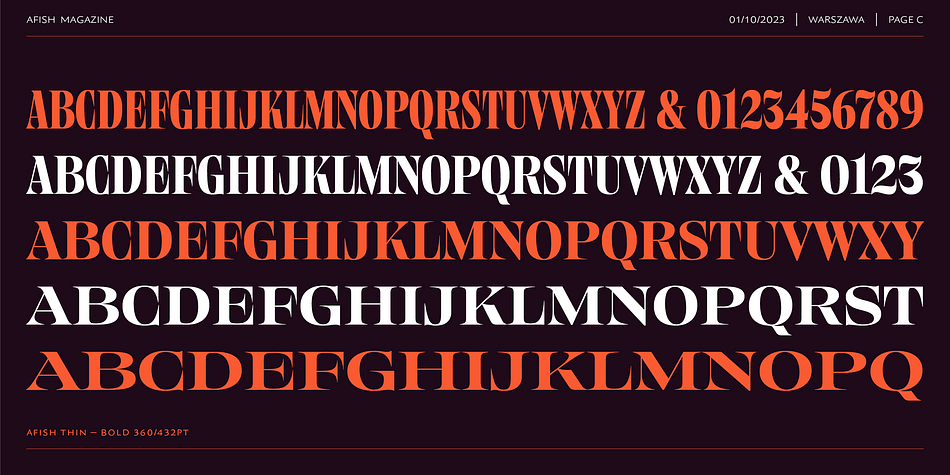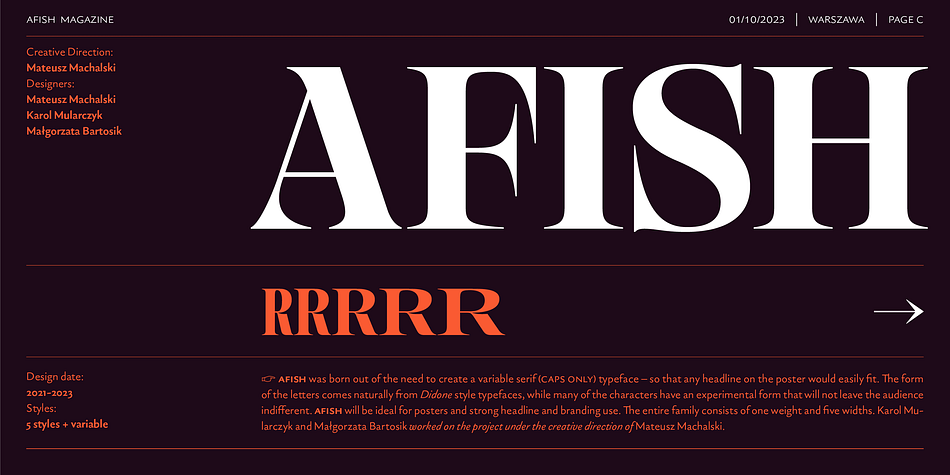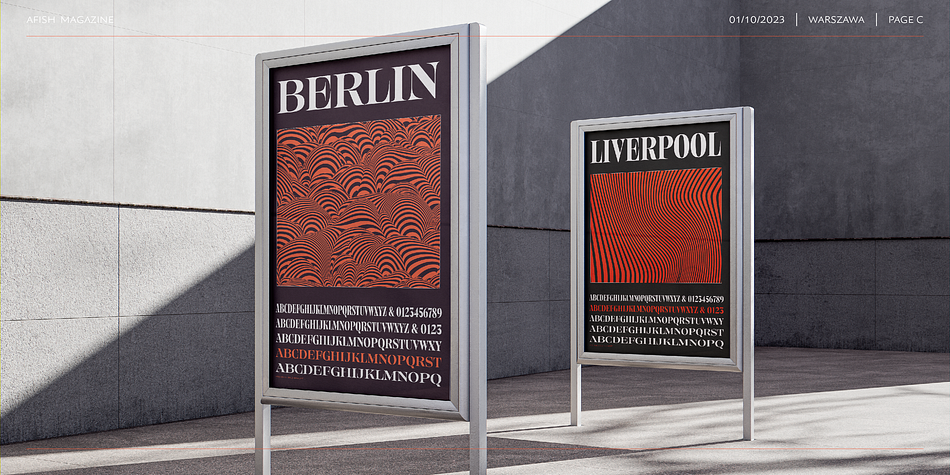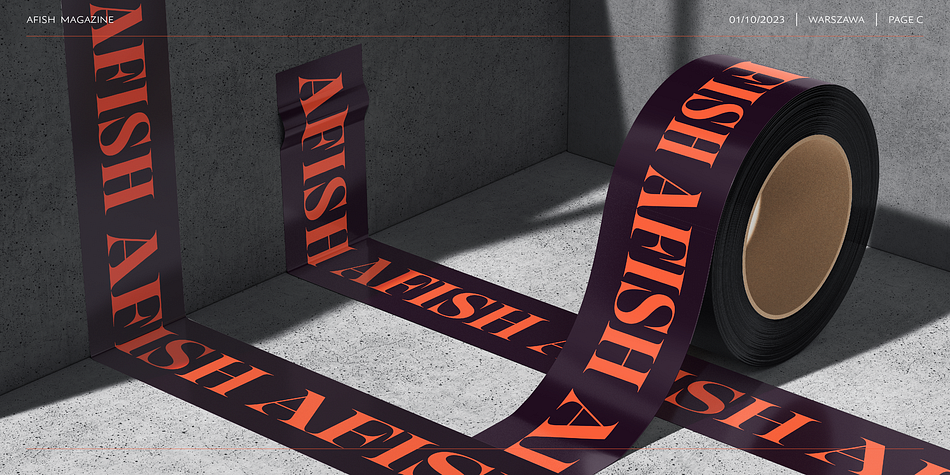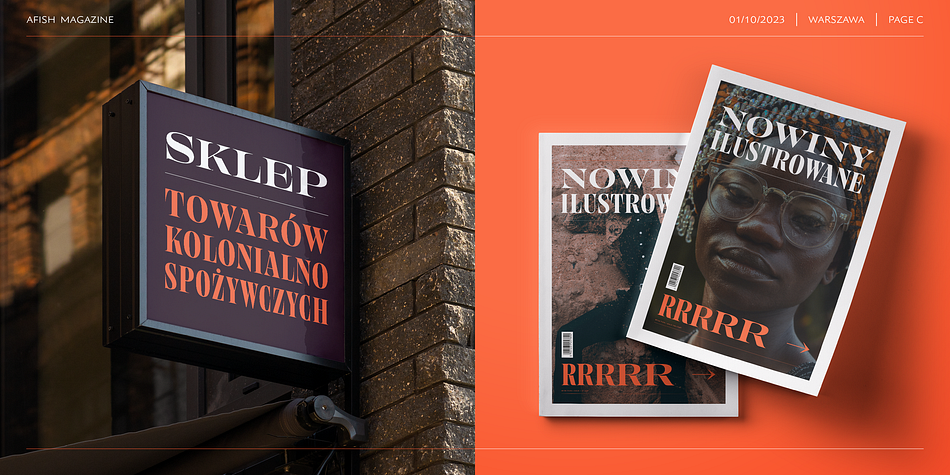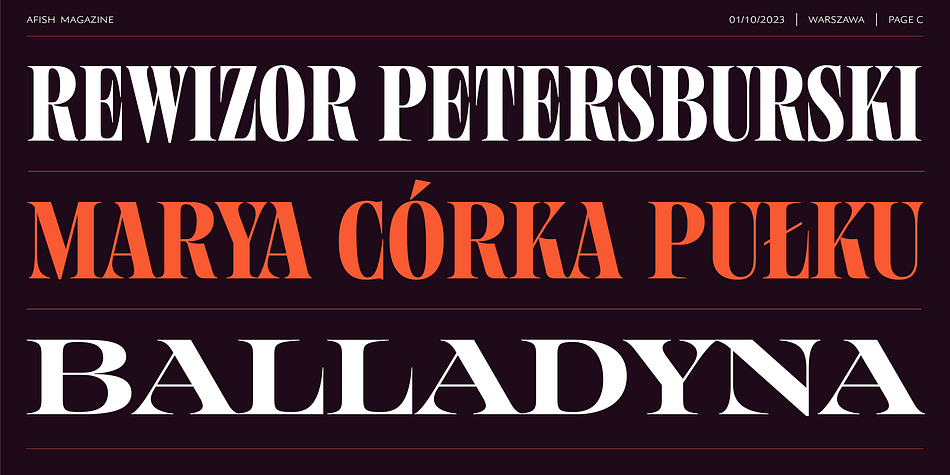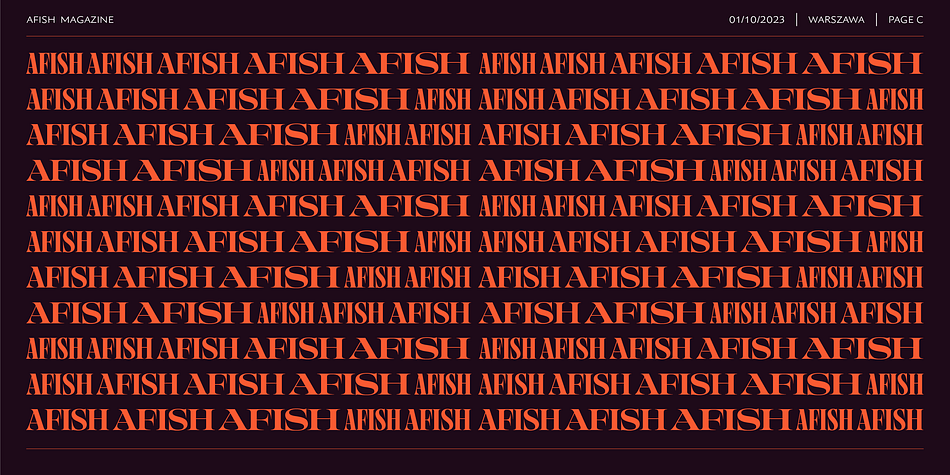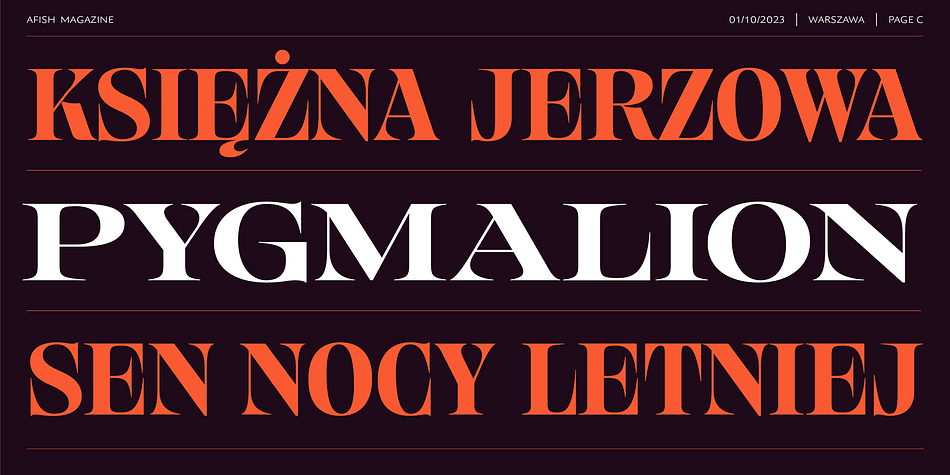
AFISH
Designed by Mateusz Machalski, AFISH is a display serif font family. This typeface has six styles and was published by MACHALSKI.
AFISH was born out of the need to create a variable serif display typeface – so that any headline on the poster would easily fit. The form of the letters comes naturally from Didone style typefaces, while many of the characters have an experimental form that will not leave the audience indifferent. AFISH will be ideal for posters and strong headline and branding use. The entire family consists of one weight and five widths. Karol Mularczyk and Małgorzata Bartosik worked on the project under the creative direction of Mateusz Machalski.